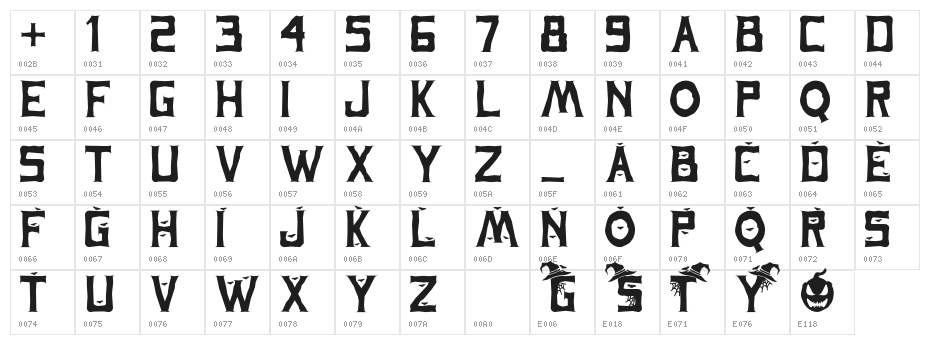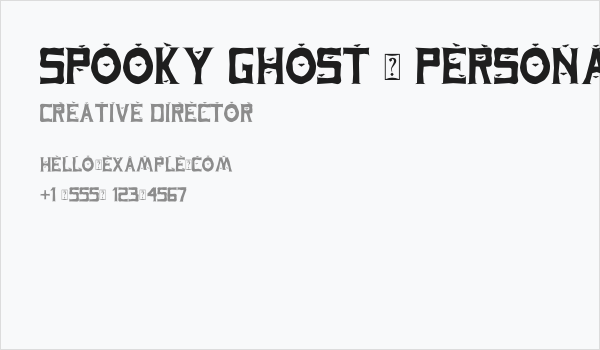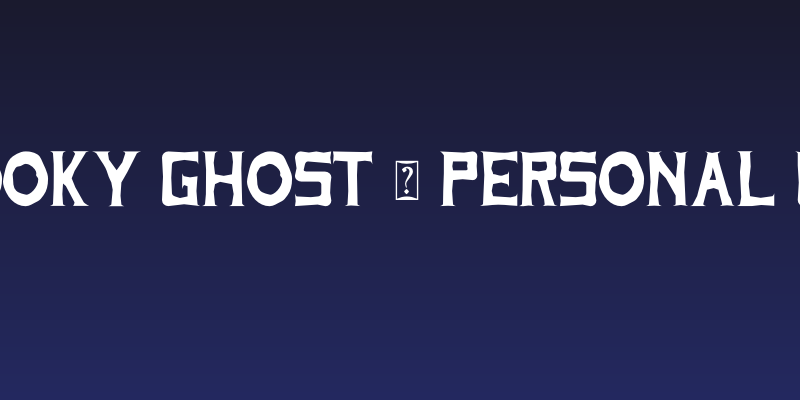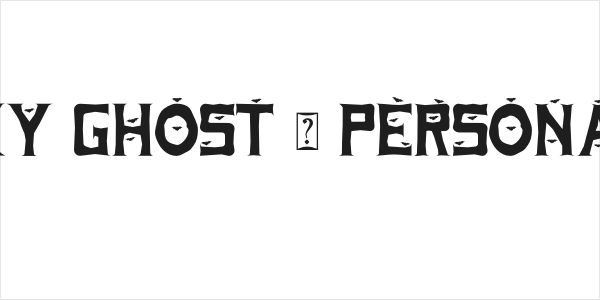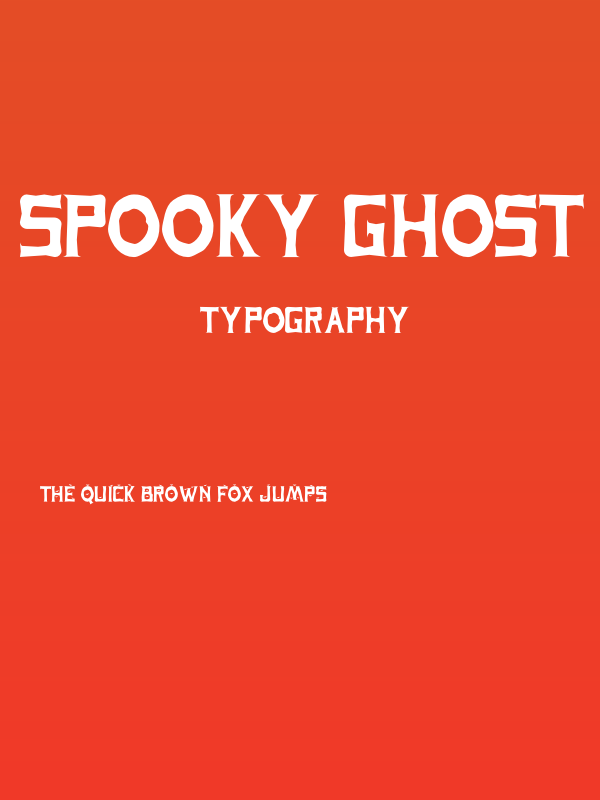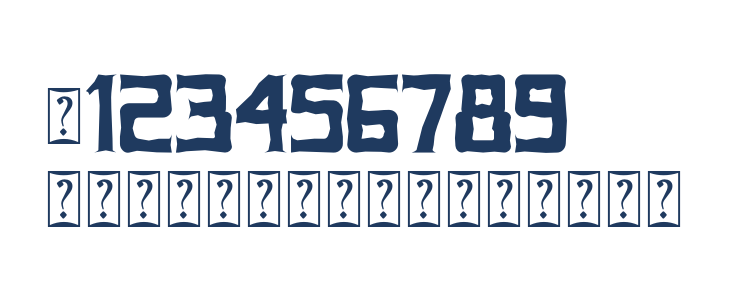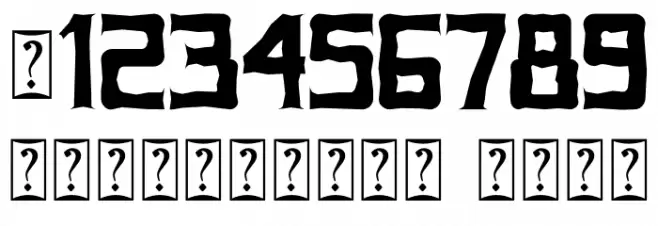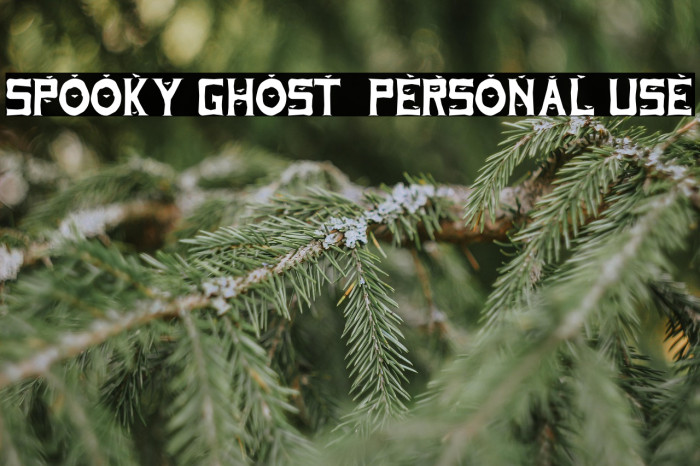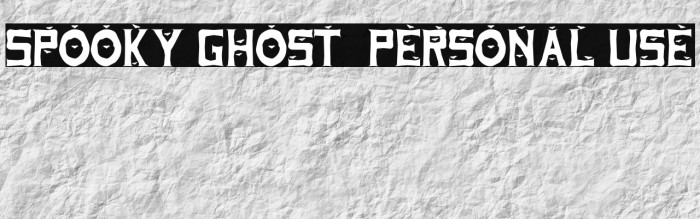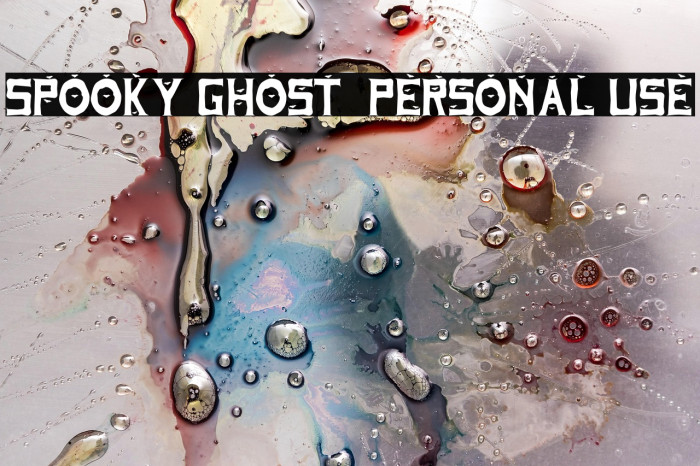
Spooky Ghost - Personal Use Font
Spooky Ghost - Personal Use Description
This font exudes a spooky and eerie vibe, perfect for Halloween-themed projects. The letters have a jagged, uneven appearance, reminiscent of ghostly figures or tattered fabric. The uppercase and lowercase characters maintain a consistent style, with sharp edges and irregular shapes that add to the unsettling aesthetic. The numbers and special characters follow the same design principles, ensuring a cohesive look across all text elements. This font is ideal for creating a chilling atmosphere in posters, invitations, or any design that requires a touch of the supernatural.